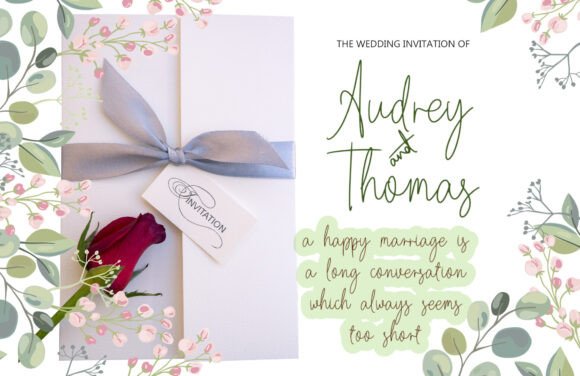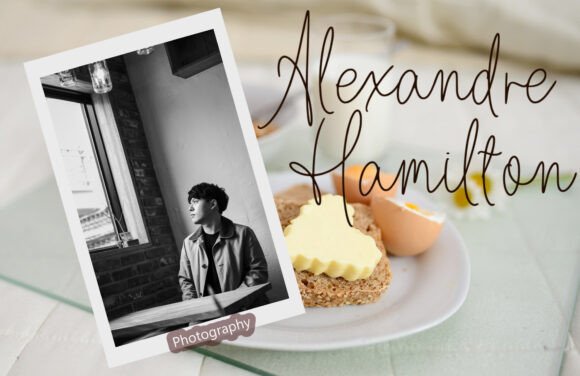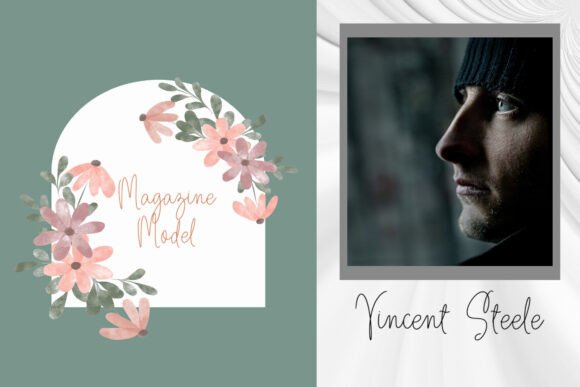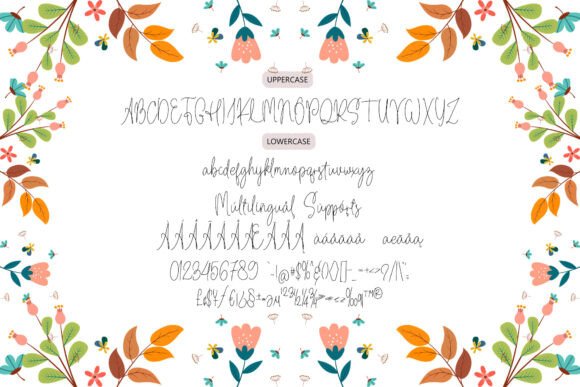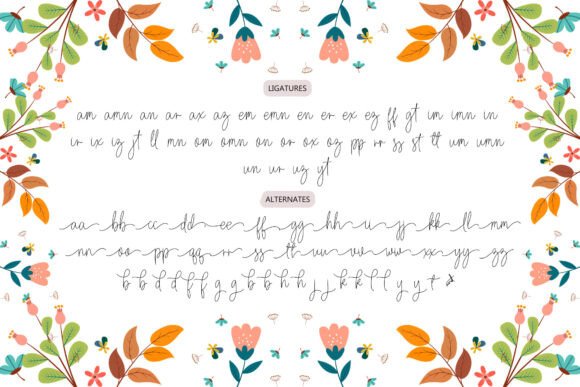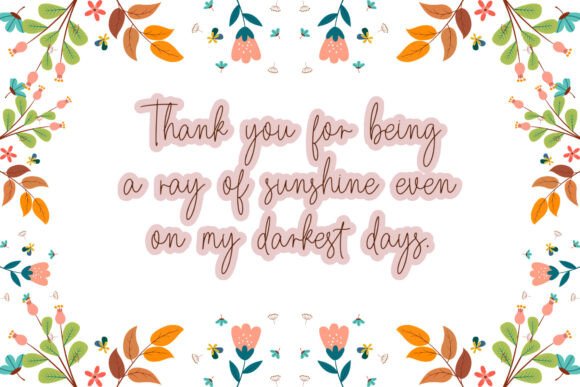
Introduction to Harboline Font
Harboline is a sleek and modern monoline font with a touch of elegance.
Its clean, uniform strokes give it a timeless appeal, making it perfect for everything from branding and logos to wedding invitations and social media graphics With a refined balance between minimalism and charm, Harboline is designed to elevate your projects with a sophisticated, yet approachable feel.